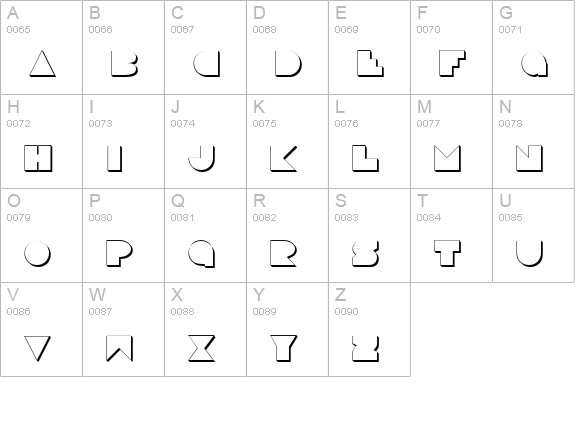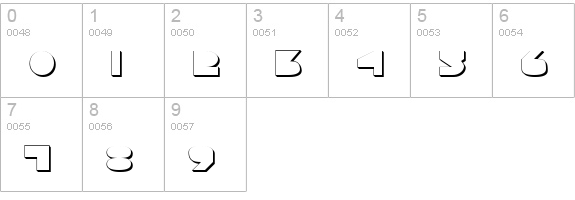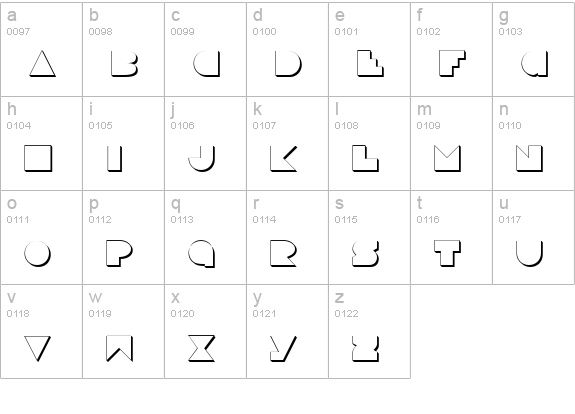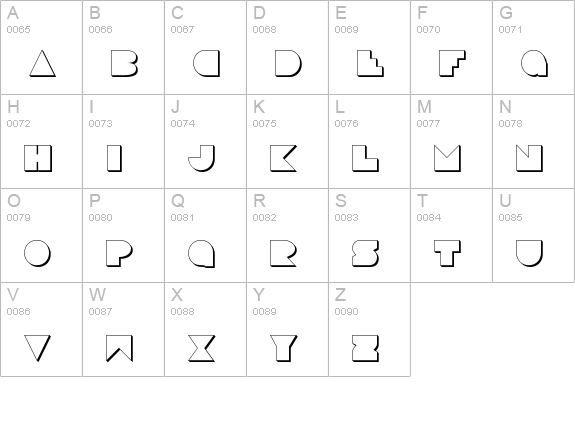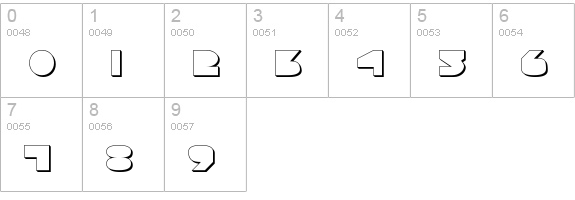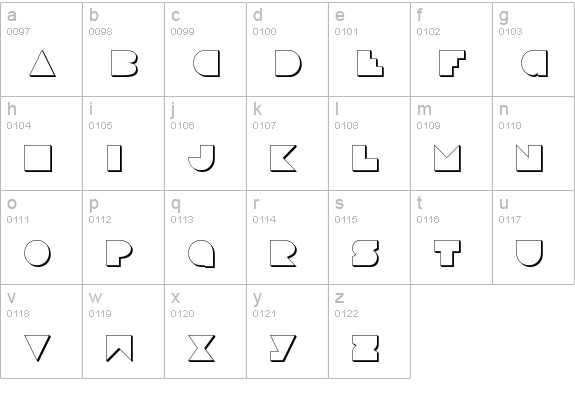
Disco Deck Shadow font is a vibrant and energetic typeface that brings a funky and retro vibe to any design project. With its bold and dynamic letterforms, this font is perfect for creating eye-catching headlines, posters, and advertisements. The unique shadow effect adds depth and dimension to the text, making it stand out in a crowded visual landscape. Best of all, Disco Deck Shadow font is completely free to download at FontsMarket.com. Whether you're a professional designer looking to add some pizzazz to your work or a hobbyist looking for a fun and playful font to play around with, Disco Deck Shadow is sure to impress. Don't miss out on this fantastic free font – download it today and let your creativity shine!